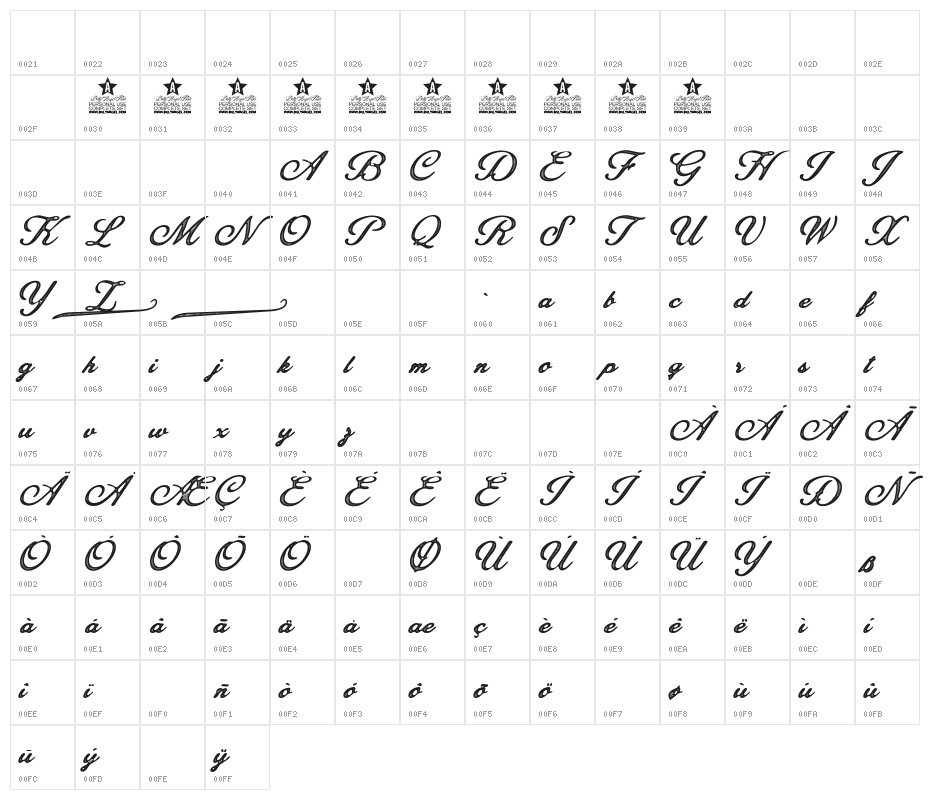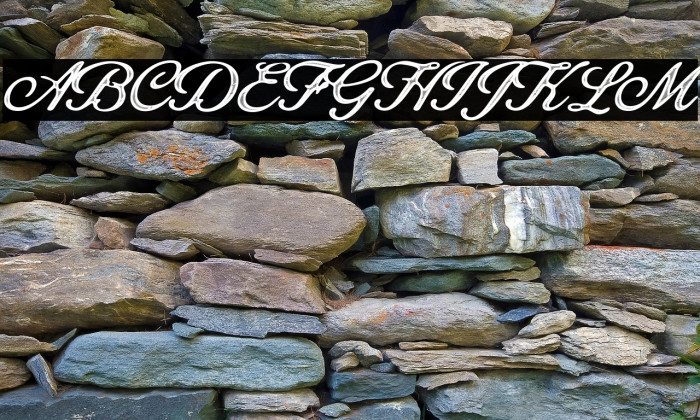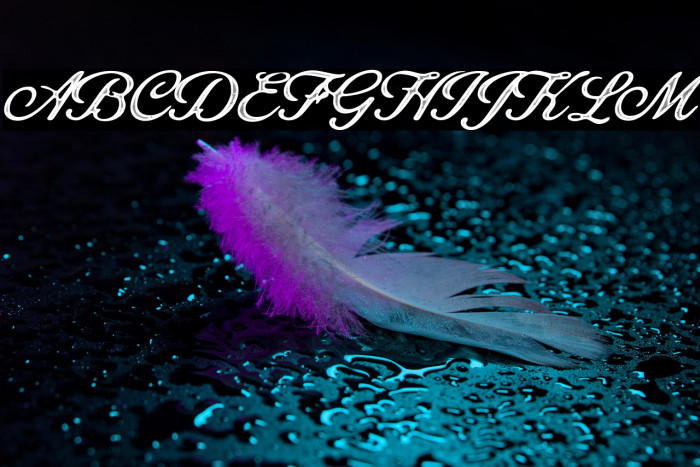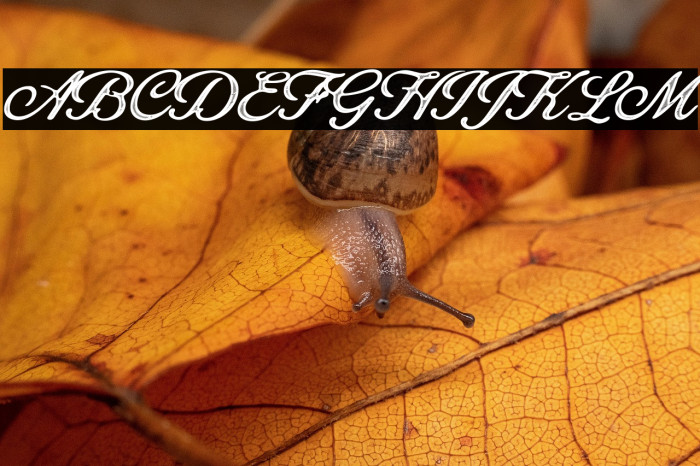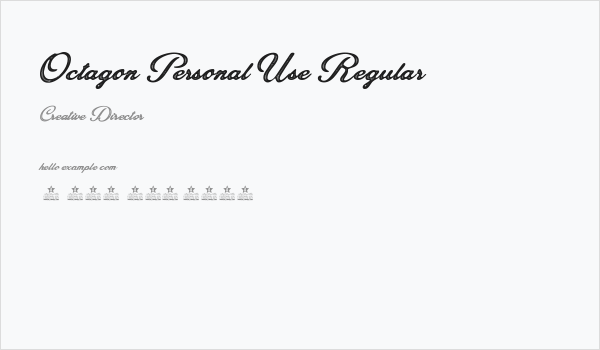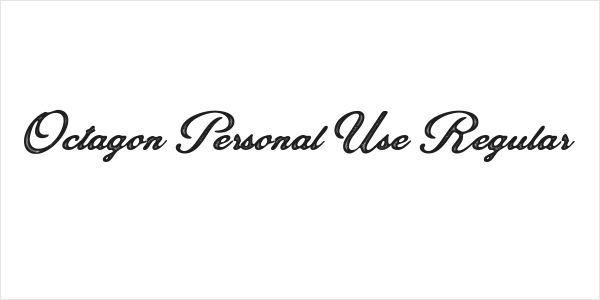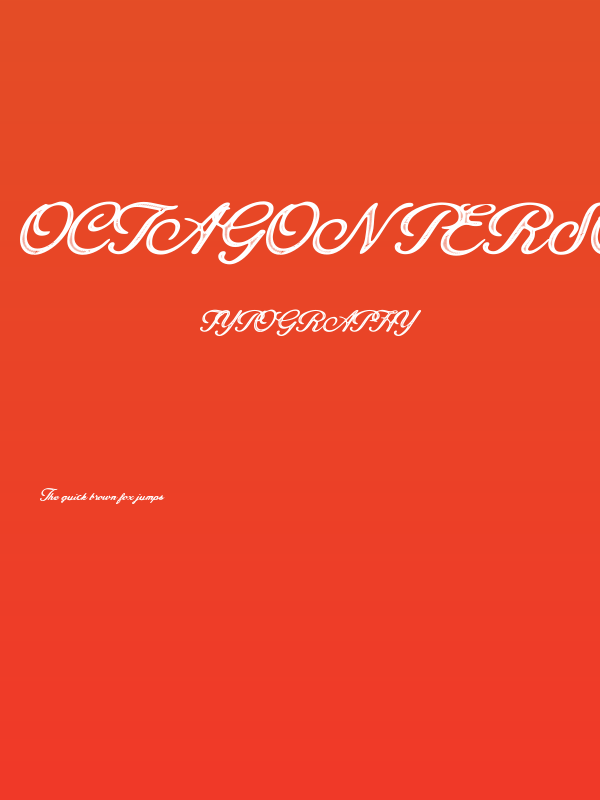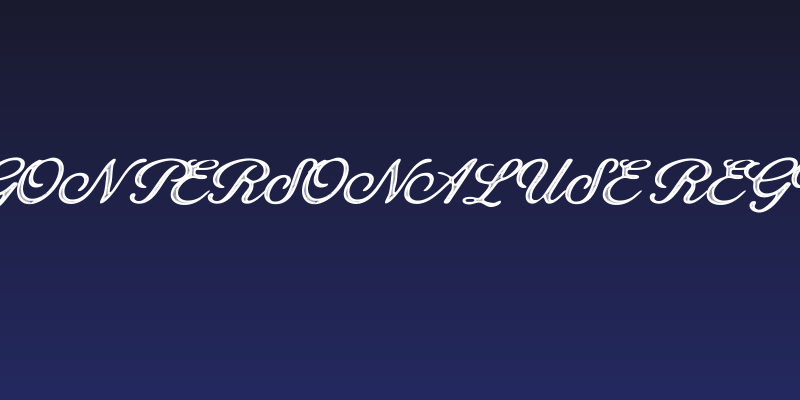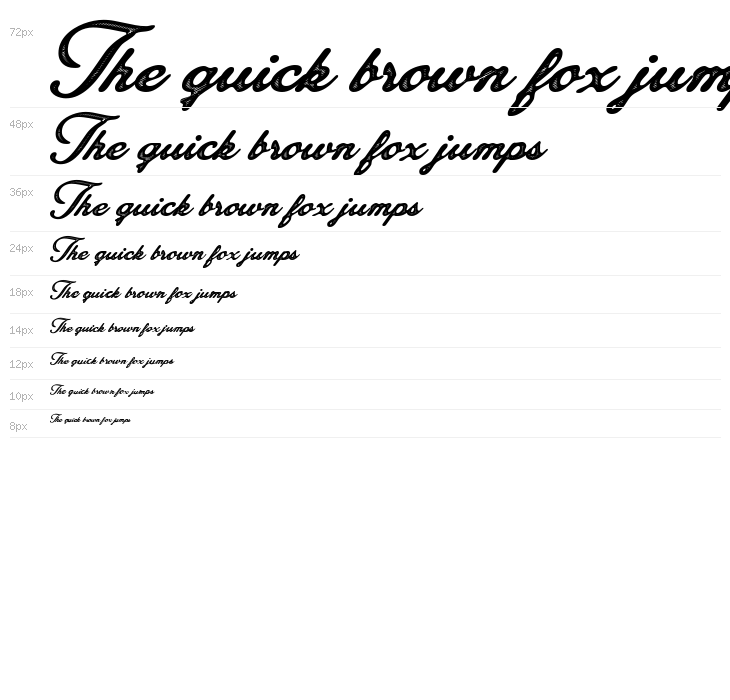
Octagon Personal Use Regular Font
Octagon Personal Use Regular Description
This font features a decorative script style with a bold, flowing design. The letters are interconnected, creating a sense of continuity and elegance. The strokes are thick with a medium contrast, giving the font a robust appearance. The uppercase letters are ornate, with intricate details that enhance their decorative nature. The lowercase letters maintain the same flowing style, ensuring consistency throughout the typeface. The font includes a set of numerals and special characters, all designed to match the overall aesthetic. The character spacing is normal, allowing for readability while maintaining the decorative elements.
| Use Case | Logos, Invitations, Decorative Headlines |
| Proposed Projects | Ideal for wedding invitations, greeting cards, and branding projects that require a touch of elegance and sophistication. |